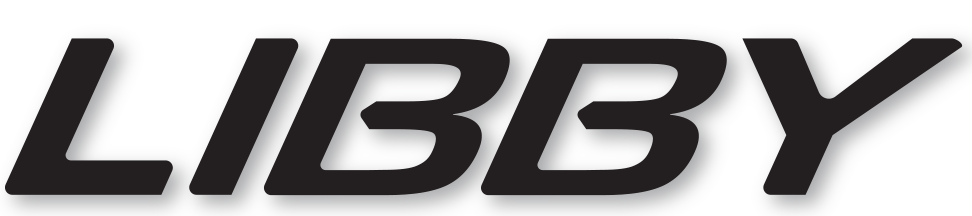
Sorry, not finding a match.
FF Signa Extended Bold Italic comes close to the overall form—you'd have to customize it from there (angle it a bit more, round the corners, edit the |B|s) to match your sample: